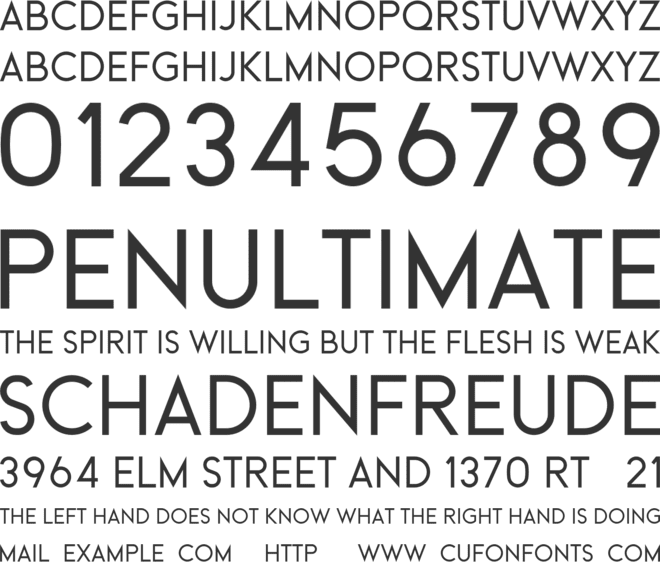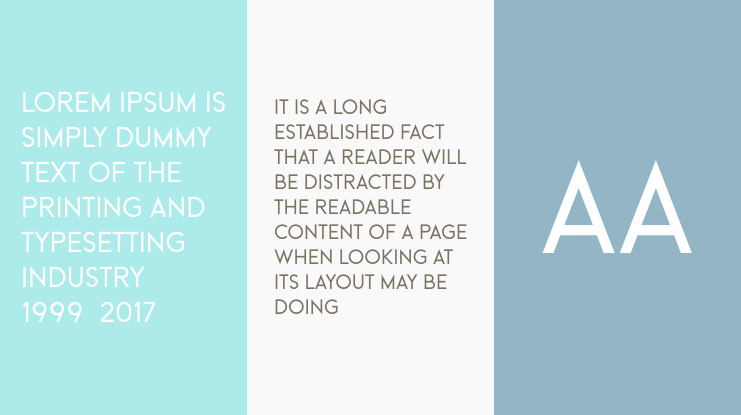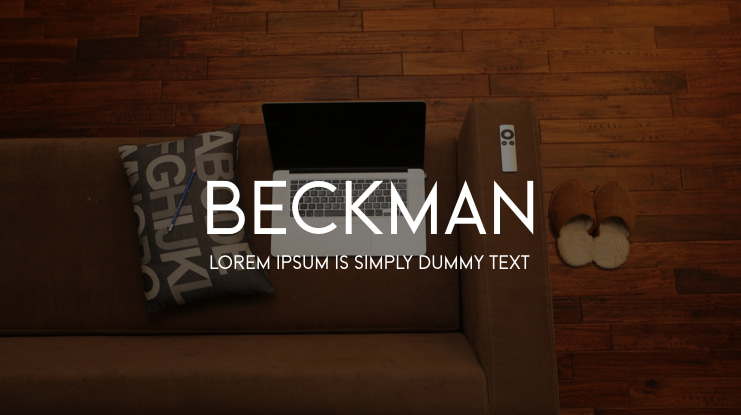
Beckman Font
Beckman is a modern font family that features geometric shapes and circular forms. It has a minimalist design that combines both geometric and minimal elements, making it perfect for contemporary designs. Beckman is a fantastic sans-serif font that you can use to enhance your headlines, branding visual identity, logos, posters, magazines, and more. To get started with Beckman, you can download it for free today!
- 6 Weights Sans (Light, Book, Regular, Medium, Heavy, Black )
- Basic Latin A-Z and a-z
- Numerals & Punctuation
- Alternate Glyphs
- Multilingual Support for ä ö ü Ä Ö Ü …